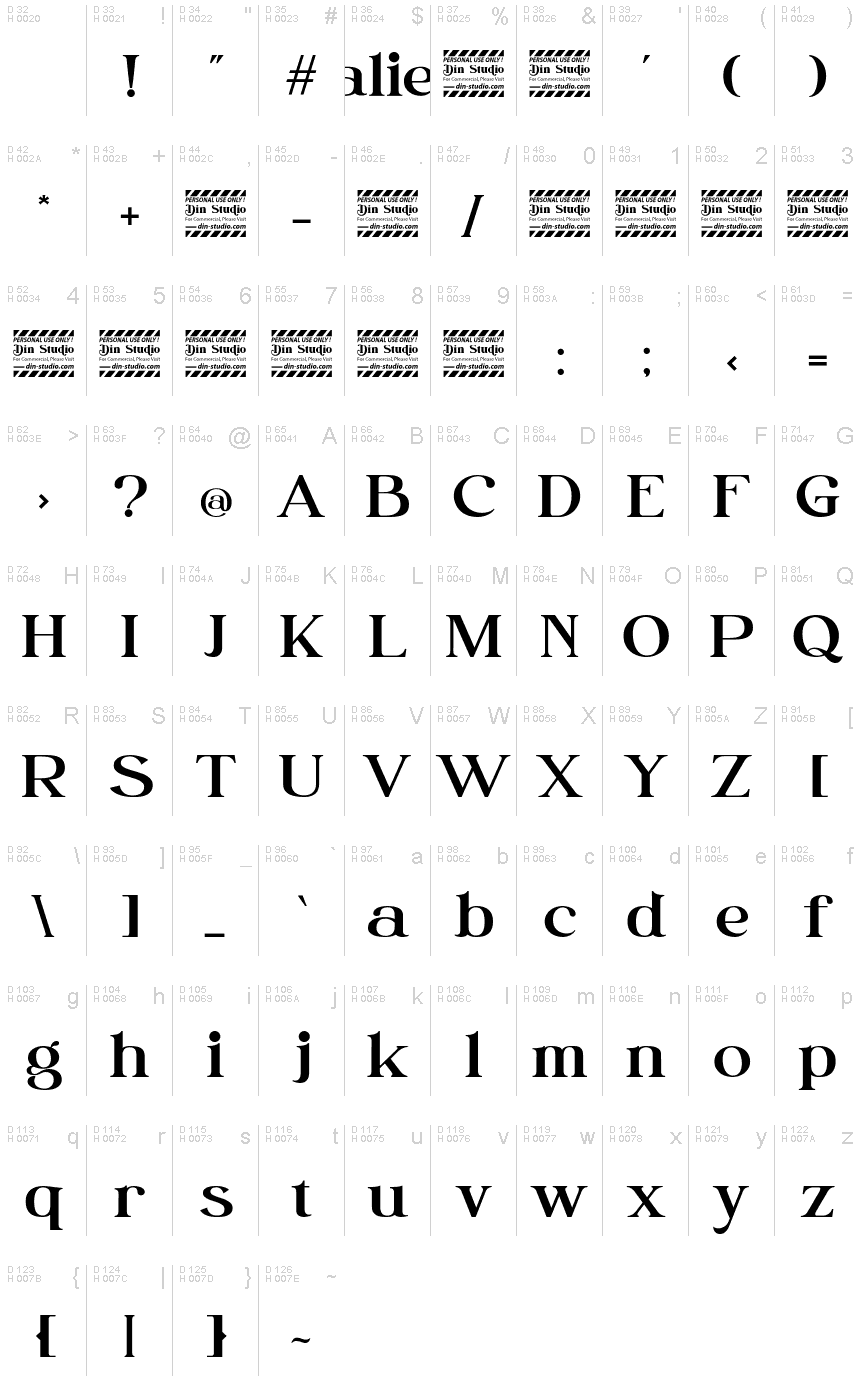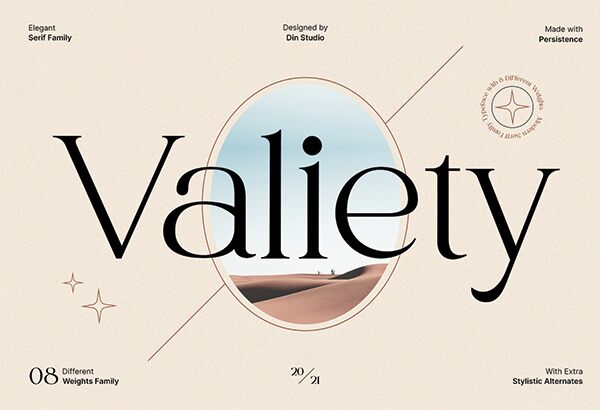
Valiety, crafted by Din Studio, is an exquisite serif font that seamlessly blends elegance with modernity.
Its semi-expanded width adds a touch of uniqueness to any project, making it perfect for fashion magazines, luxurious branding materials, and sophisticated wedding invitations. This versatile font typeface effortlessly captures attention and lends an air of sophistication to menus in high-end restaurants or coffee table books. With Valiety's timeless charm and legibility, it becomes an ideal choice for book covers, editorial designs, and even website headings.
Elevate your designs with Valiety's semi-bold font style and create an everlasting impression.
Valiety is modern serif font family